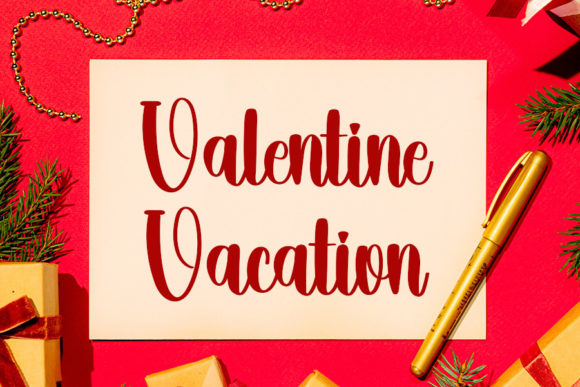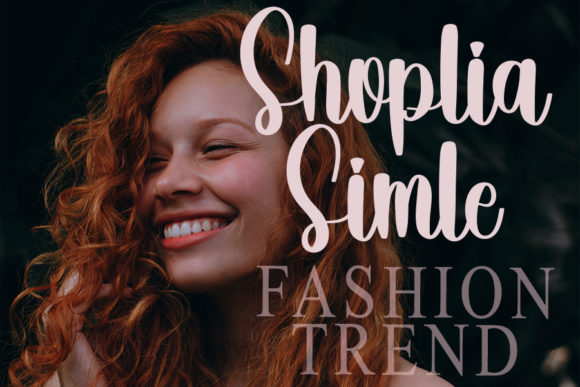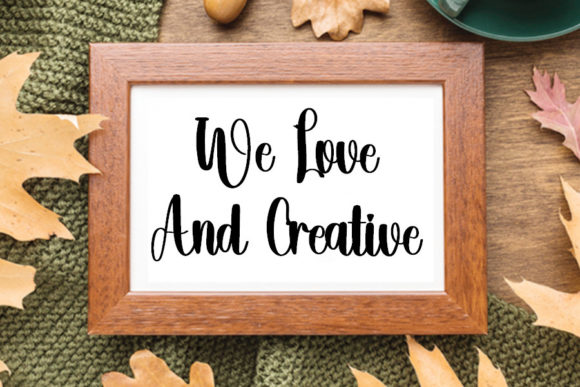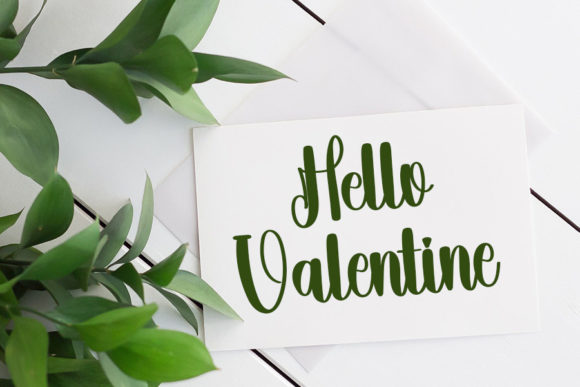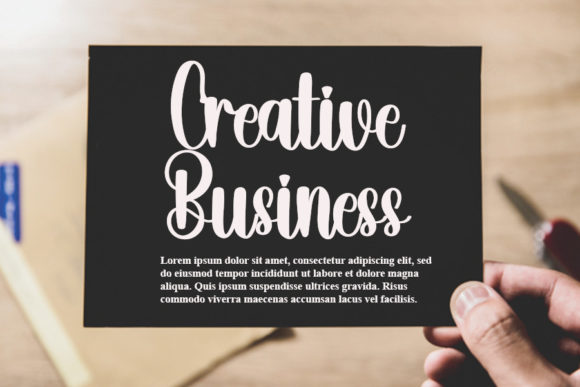
Introduction to Juliette Font
Have you ever been working on a creative project, pouring your heart and soul into it, and then that perfect font comes along and takes it to the next level? For designers, that moment is pure magic. It’s like the missing piece of the puzzle has finally fallen into place. That’s exactly what happens when you discover the Juliette Font. This gorgeous and bold handwritten font is more than just a pretty face – it’s a game-changer for any design project.
The Juliette Font is a high-quality design resource that can add tons of nostalgic character to your work. Its confident and dynamic feel is sure to make your designs stand out from the crowd. And with its PUA encoding, you can access all of the amazing glyphs and ligatures with ease, making it a valuable addition to any designer’s toolkit.
Key Features of Juliette Font
- High-quality, elegant script font ideal for creative projects and design resources.
- Designed with a unique, handwritten style that adds a touch of sophistication to any creative project.
Honest Review: Juliette Font
As a designer, I’m always on the lookout for high-quality design resources to enhance my creative projects. Recently, I had the chance to try out the Juliette Font, and I must say, it’s been a game-changer.
- ✨ Beautiful, elegant script that adds a touch of sophistication to any design
- ⚠️ Limited font styles and variations, which may not be suitable for complex design projects
For the best results, use Juliette Font in conjunction with a high-quality image or background. This will help to create a cohesive and visually appealing design. You can also experiment with different font sizes and colors to add emphasis and interest to your design.
Juliette Font is ideal for a variety of creative projects, including wedding invitations, business cards, and social media graphics. Its elegant and sophisticated design makes it a popular choice for designers looking for a high-quality design resource.